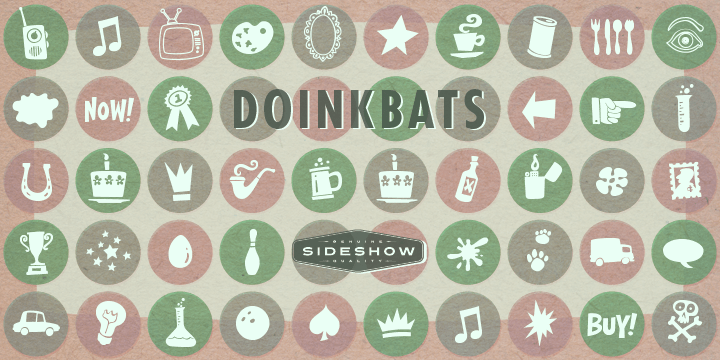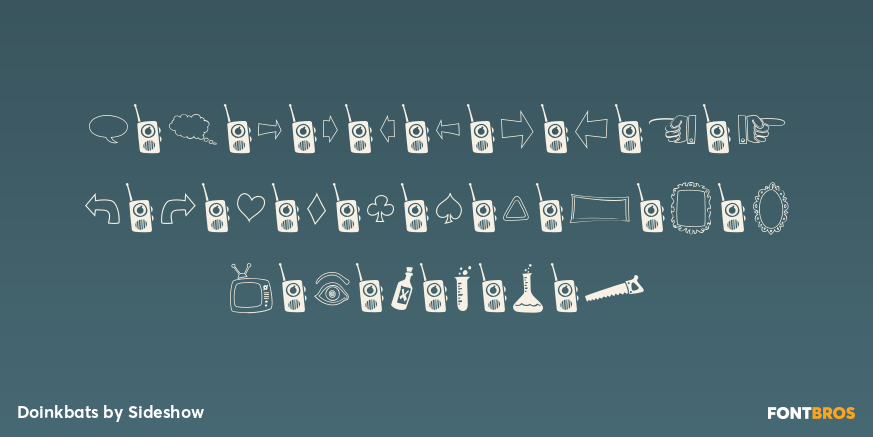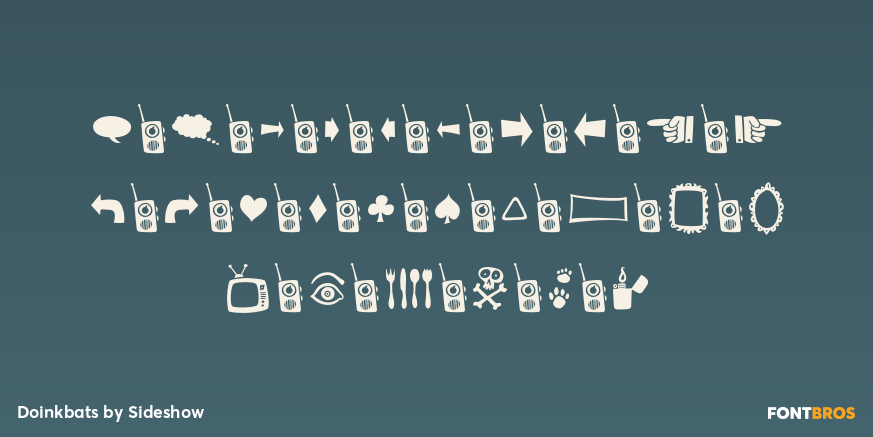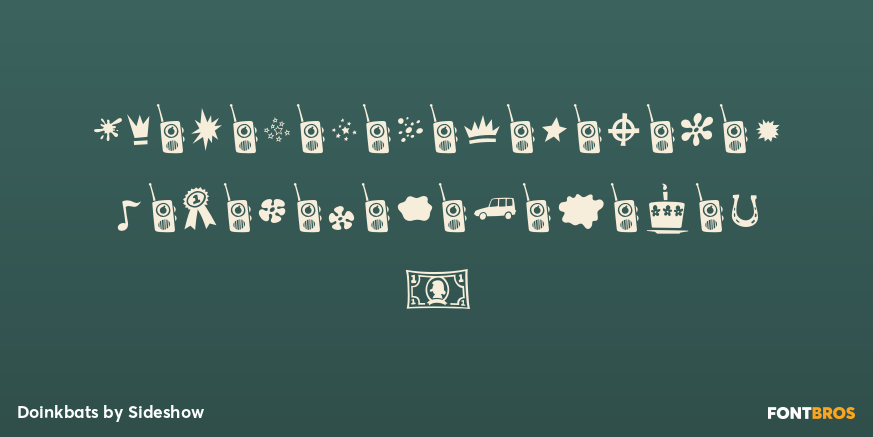
Doinkbats
Font Family by Sideshow
Looking for a fun, funky dingbat font that works well with your wacky and weird projects? May we suggest..... DOINKBATS! Not unlike its designer famous tiki artist and sculptor Squid, Doinkbats are a little unbalanced and a little off-kilter yet still gets the job done.